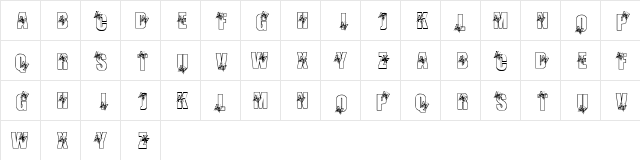
KR Butterfly 3 Regular
Design Context for KR Butterfly 3 Typeface
KR Butterfly 3 is a composed and adaptable typeface that performs quietly and consistently across a wide range of design contexts.